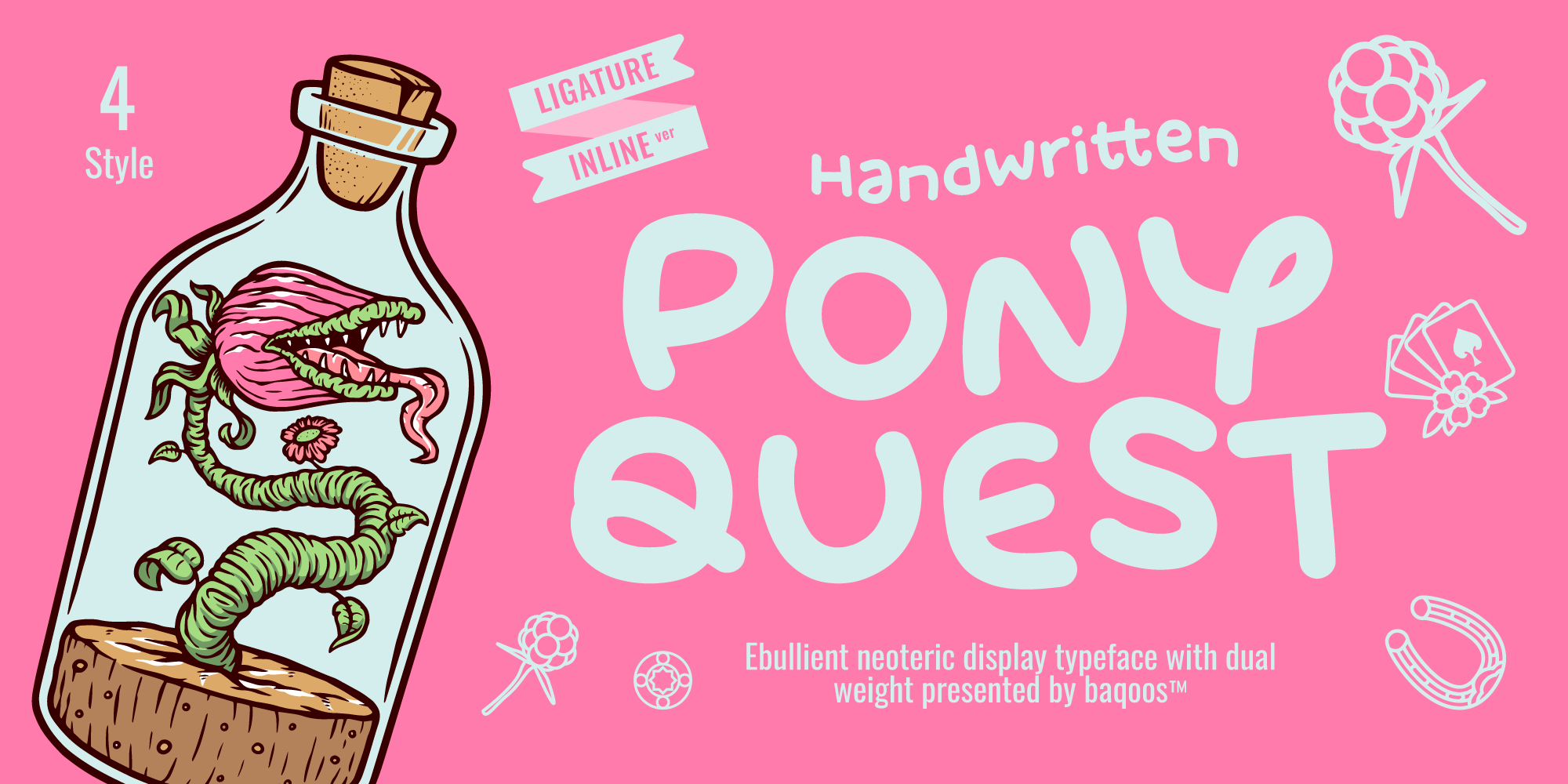
Pony Quest Font is a delightful and whimsical typeface, perfectly suited for projects that aim to evoke a sense of playfulness, adventure, and enchantment. Imagine it gracing the cover of a children's book, adding a charming touch to birthday party invitations, or bringing a magical feel to branding for a toy store or confectionery. Its unique, often hand-drawn or illustrative style makes it an excellent choice for crafting memorable logos, eye-catching posters for themed events, or engaging social media graphics that stand out. It excels in designs that require a friendly, approachable, and imaginative aesthetic, making it ideal for both digital and print applications where a joyful personality is key.
What makes Pony Quest Font truly exciting is its ability to instantly transport viewers into a world of fantasy and fun. It often features quirky details, flowing lines, or bouncy baselines that give it a distinct character, setting it apart from more conventional typefaces. This inherent expressiveness allows designers to infuse their projects with a sense of wonder and lightheartedness, making the communication feel more personal and engaging. Its unique charm makes it a go-to for creatives looking to add a sprinkle of magic and a dash of adventure to their visual narratives. It's not just a font; it's a storytelling element that brings whimsy to life.
The Pony Quest Font family, while typically designed with a specific thematic appeal, often includes variations that enhance its versatility within its niche. You might find a standard Regular weight, possibly alongside a bold or outline version to add emphasis and visual depth. Some versions may also come with stylistic alternates, ligatures, or decorative elements that allow for further customization, making your designs truly unique. While it might not have the extensive range of a traditional text typeface, the available styles are carefully crafted to maximize its playful impact and charm, ensuring that Pony Quest Font Free Download provides a delightful and distinctive addition to your creative arsenal.